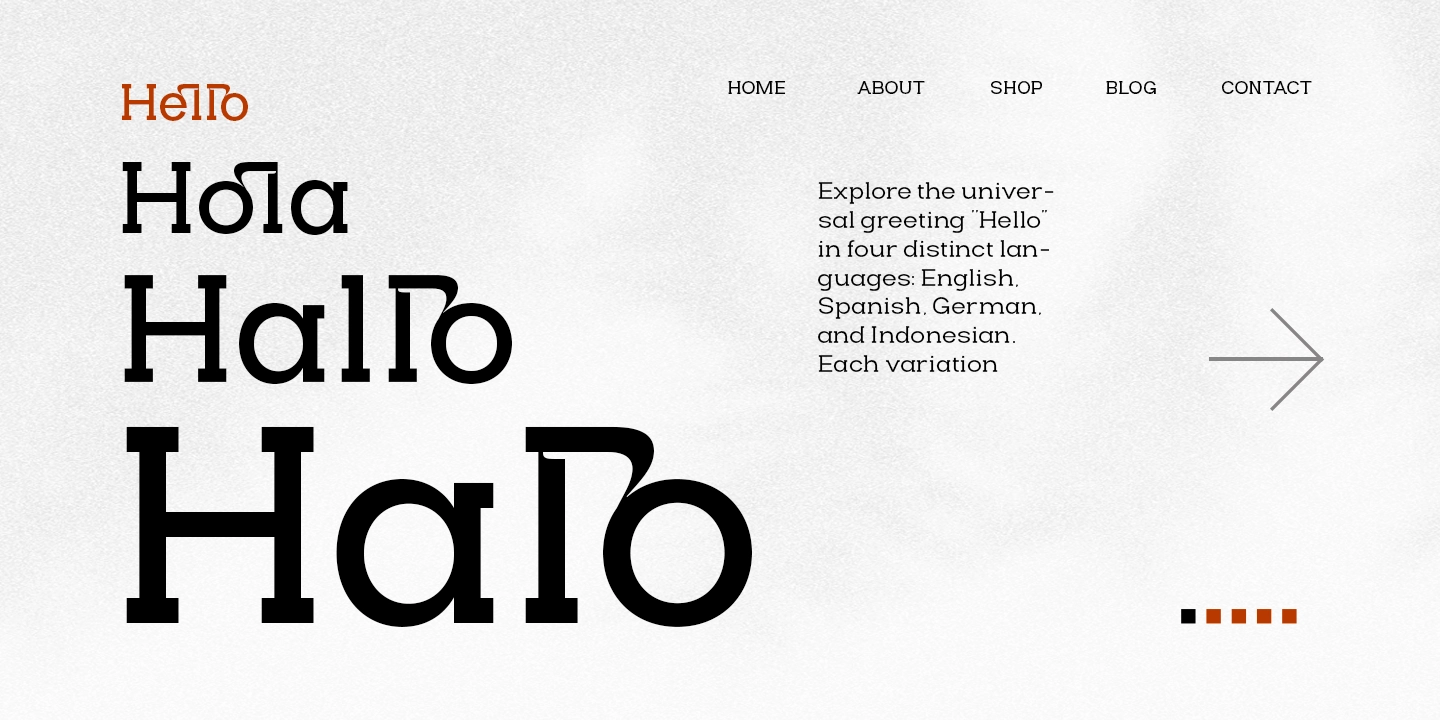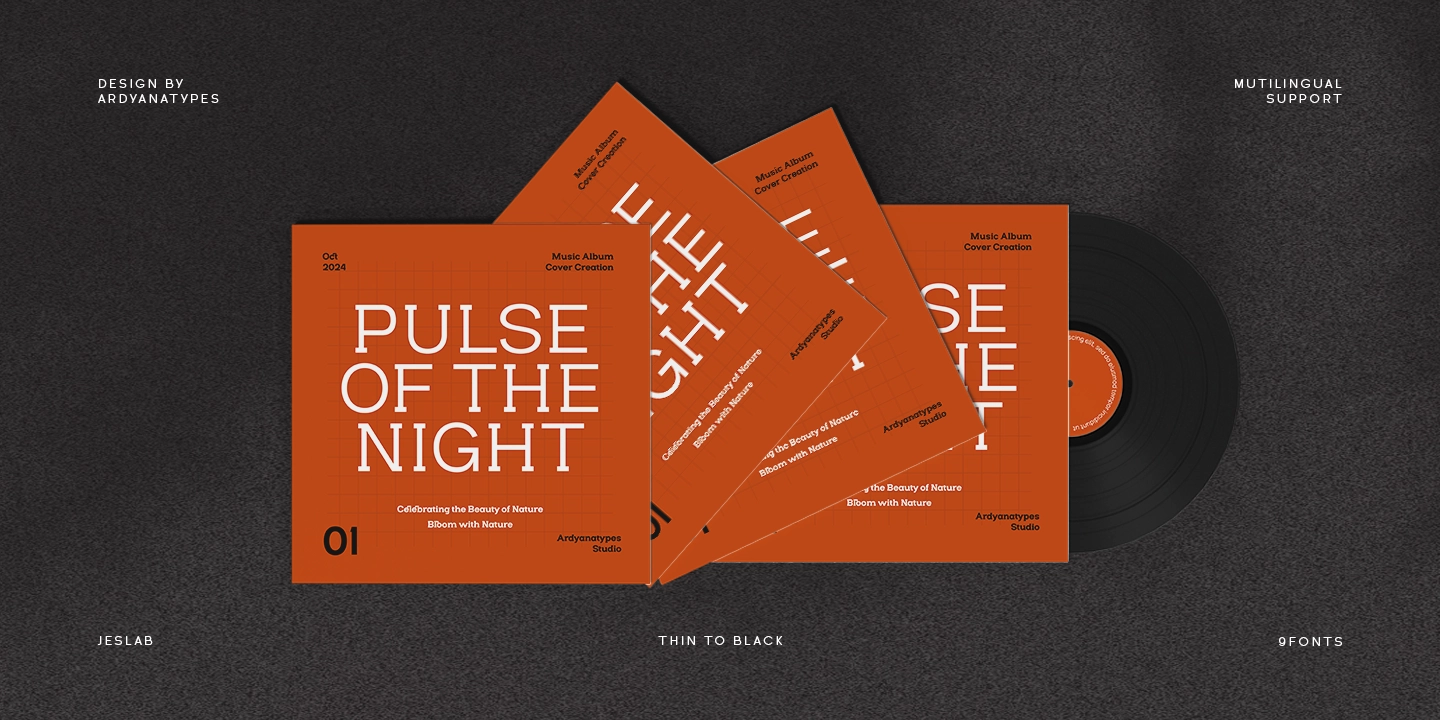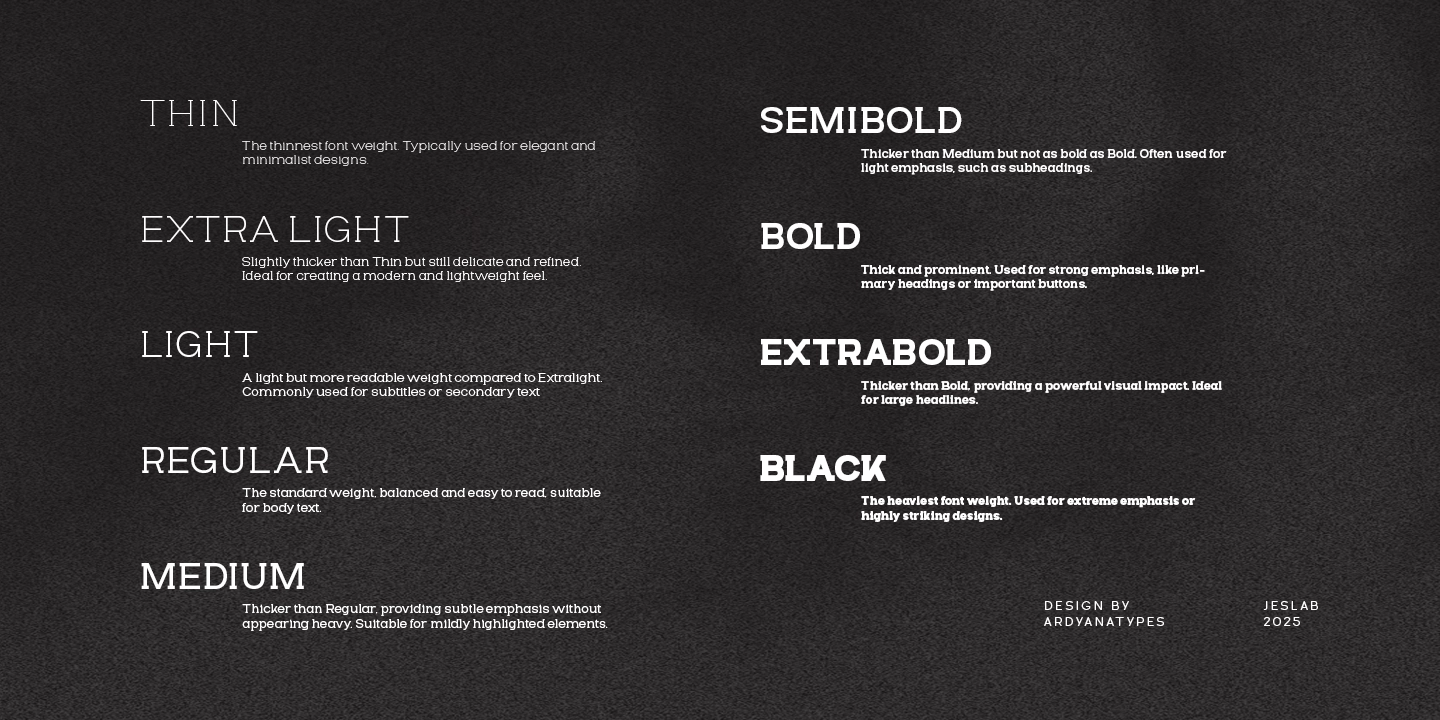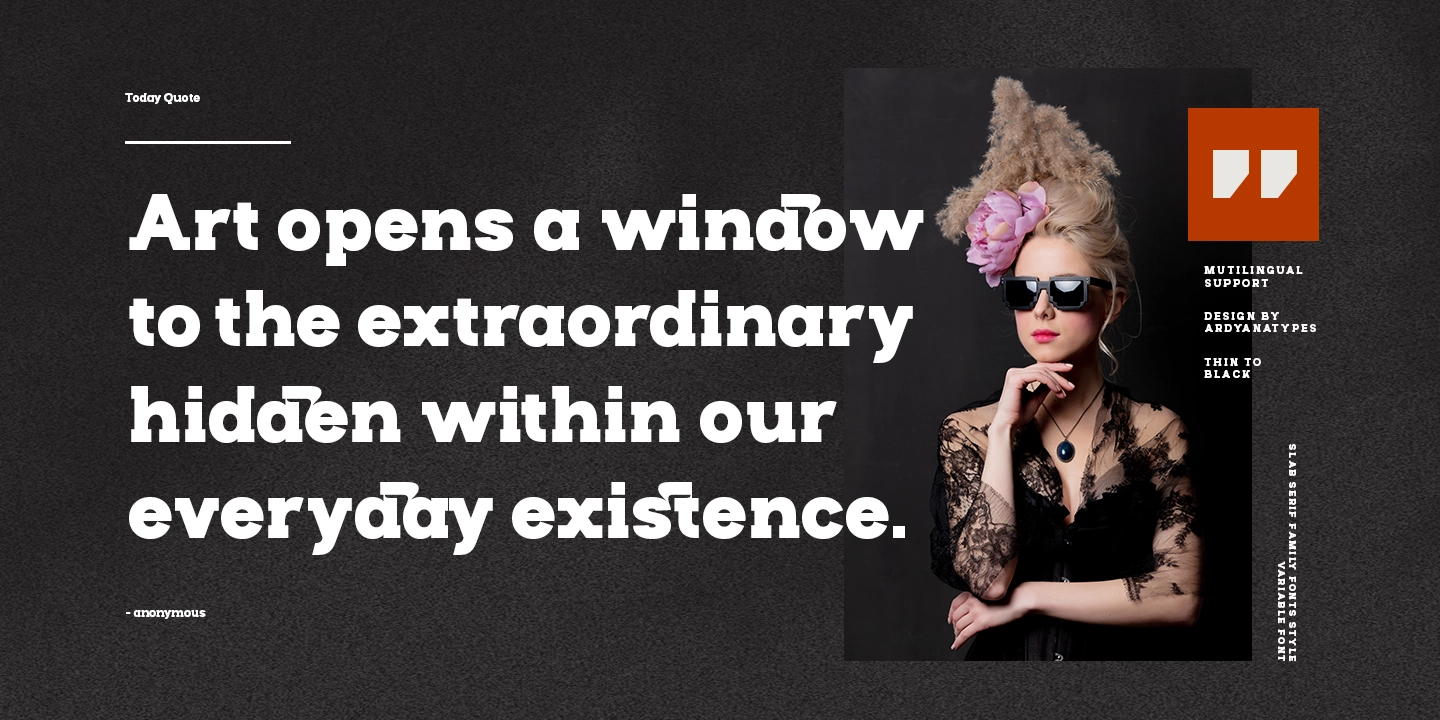
Jeslab
Introducing Jeslab, a modern Slab Serif Font with a strong and elegant character. Designed for versatility, Jeslab comes with 9 font styles, ranging from Thin to Black, allowing you to create dynamic typography with ease. Its variable fontfeature enables smooth weight transitions, making it a powerful choice for any design project.
Why Choose Jeslab?
• Best Slab Serif Font: Ideal for branding, editorial, and web design.
• 9 Weights Included: From Thin to Black, offering flexibility for any branding needs.
• Variable Font Support: Adjust weight dynamically to fit your design vision.
• Multilingual Support: Covers various Latin-based languages.
• High-Quality Details: Sharp edges and balanced proportions for a professional look.
Perfect for:
• Branding & Logo Design
• Modern Posters & Bold Headlines
• Creative Packaging & Typography
• Editorial & Magazines Layouts
• Web & UI/UX Design
Jeslab brings a modern slab serif style with a contemporary twist, making it the best choice for designers looking to create impactful and readable typography. Enhance your projects with Jeslab, a font built for professionals who demand excellence.